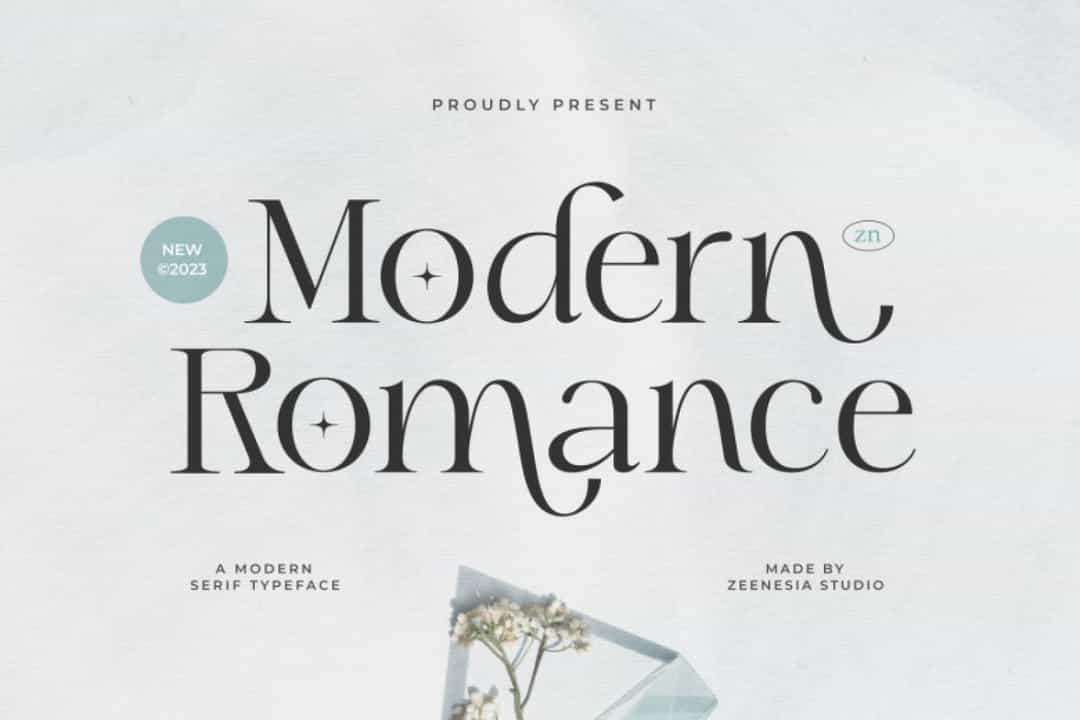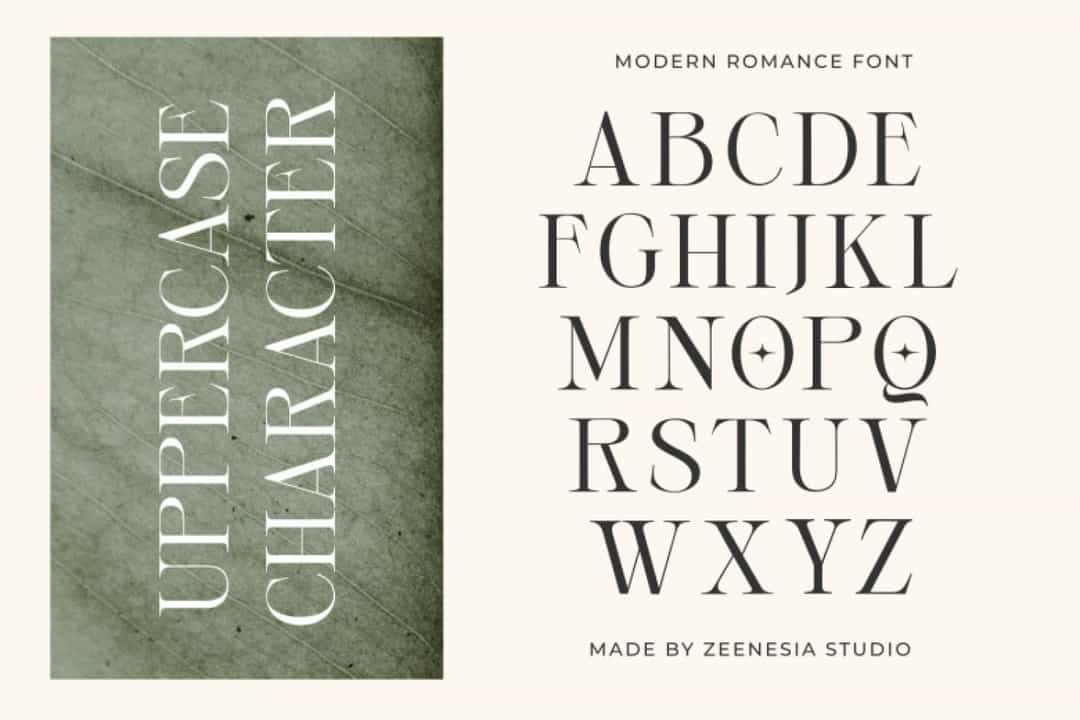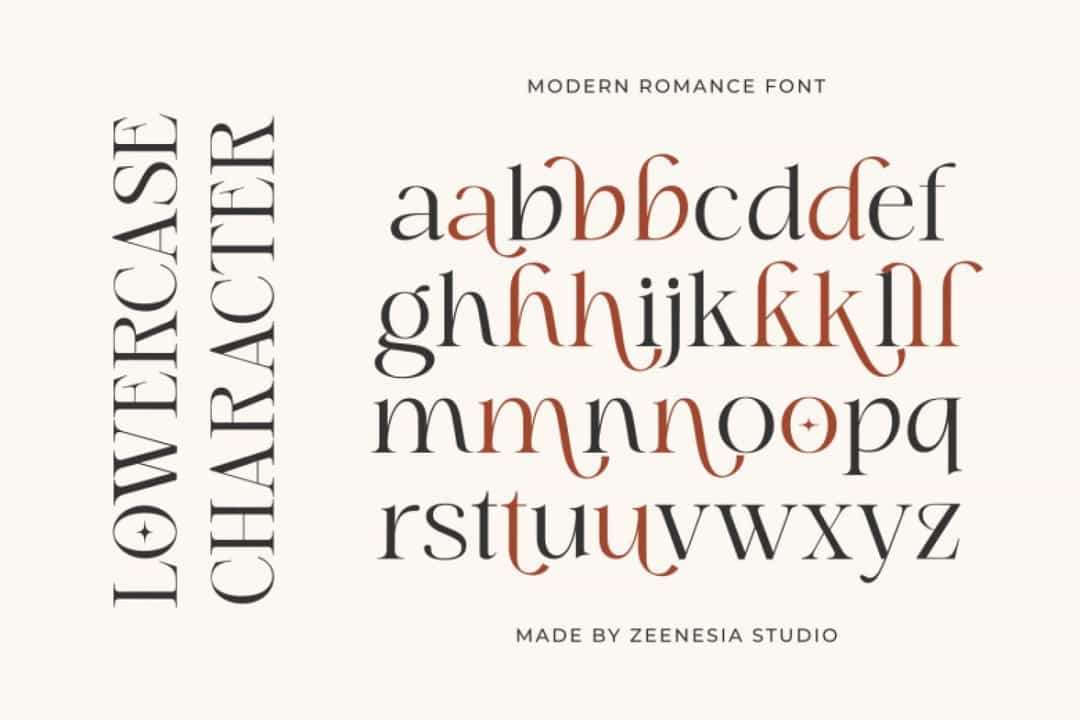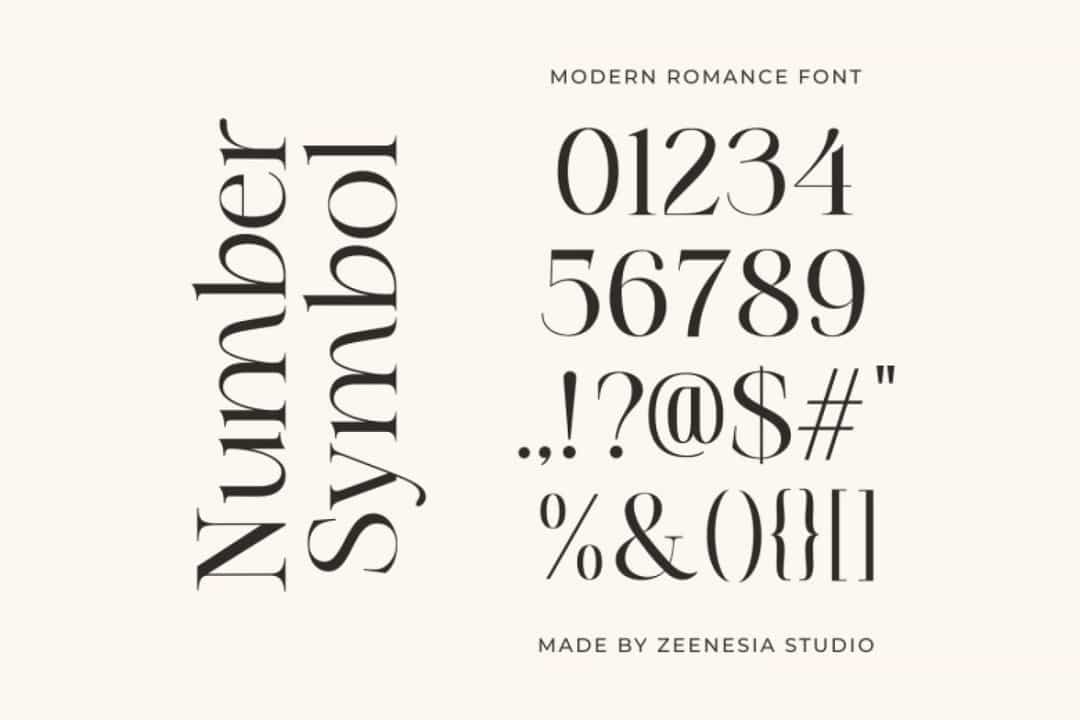
Modern Romance is an elegant and contemporary serif font with an eye-catching romantic aesthetic, ideal for large sizes. Perfect for business presentations or digital design projects or even greeting card design – Modern Romance will become one of your go-to fonts in no time!